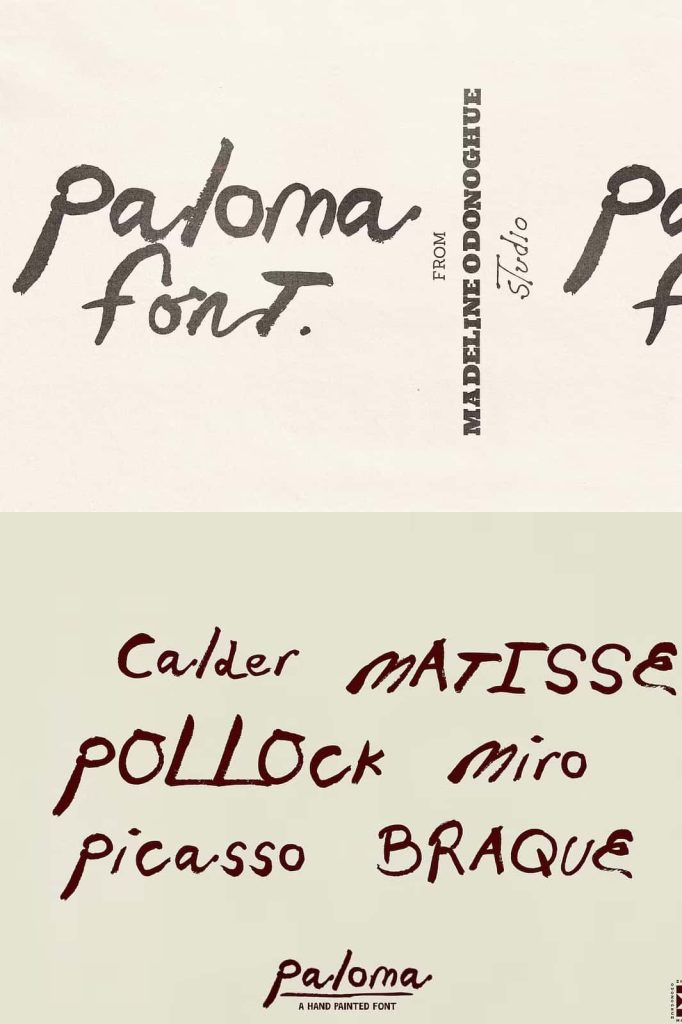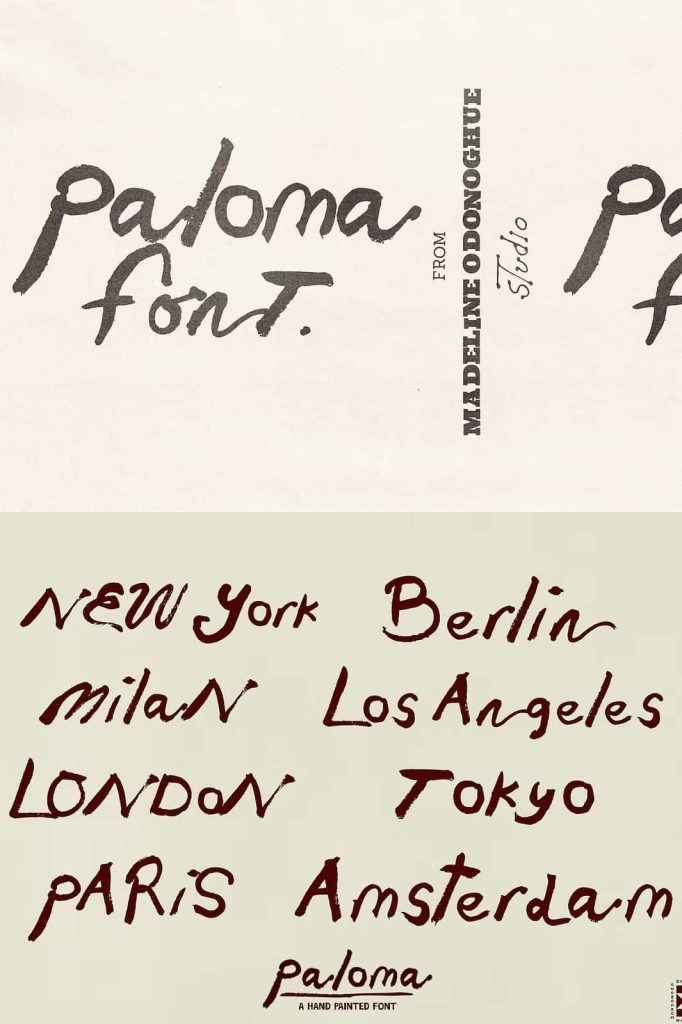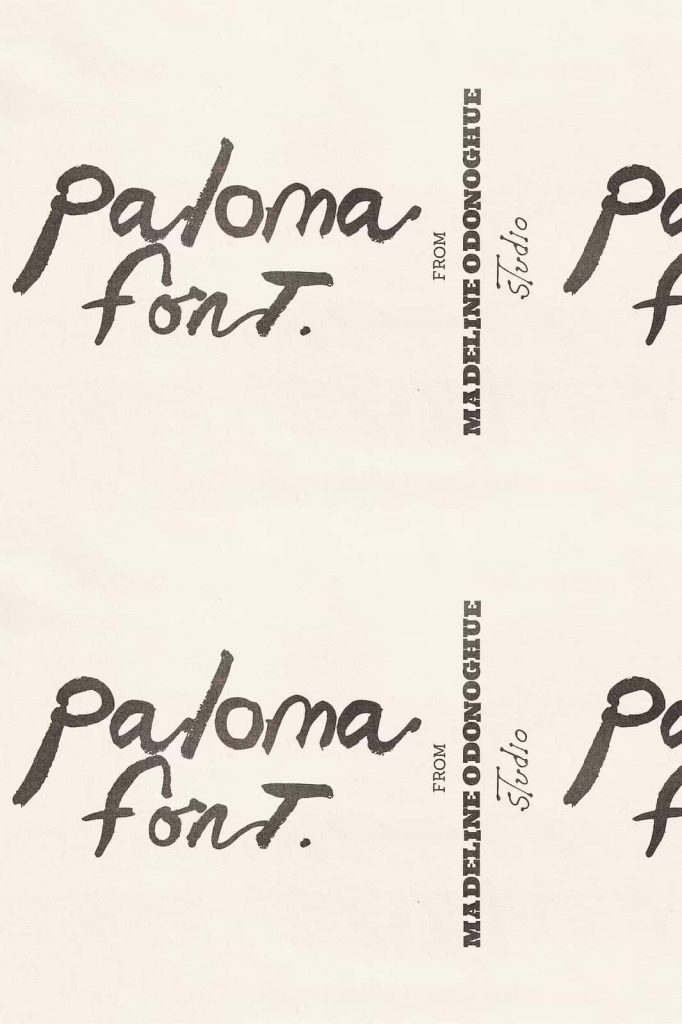
Paloma Hand Painted Display Font
Paloma is a beautifully handcrafted display font that captures the expressive energy of real brush painting. Inspired by loose paint strokes, artist signatures, sketchbook notes, and spontaneous brush marks, this typeface celebrates creativity without the constraints of perfect geometry. Every character originates from genuine hand-painted lettering, allowing the font to preserve the authentic texture, rhythm, and movement that only traditional brushwork can achieve.
Unlike clean digital fonts that emphasize flawless precision, Paloma embraces natural imperfections. Uneven edges, organic brush textures, and flowing strokes give every letter a lively personality that feels authentic and artistic. Whether you are designing a logo, branding materials, product packaging, editorial layouts, or social media graphics, Paloma adds a handcrafted touch that instantly makes your typography more memorable and emotionally engaging.
Its painterly style allows designers to communicate confidence, originality, and artistic freedom while maintaining excellent visual impact across both print and digital media.
Inspired by Real Brush Strokes and Artistic Expression
Paloma draws inspiration from the everyday creative moments experienced by artists and designers. Imagine signing the corner of a finished canvas, writing quick notes in a sketchbook, testing paint on the edge of a palette, or making bold expressive strokes with a freshly loaded brush. Those natural gestures become the foundation of this unique display font.
Every character reflects the fluid movement of traditional painting rather than rigid digital construction. This approach creates typography that feels alive, allowing every word to communicate energy, creativity, and authenticity.
Instead of appearing overly polished, Paloma preserves the subtle irregularities that make handcrafted lettering so appealing. These artistic imperfections give your projects warmth and individuality that perfectly clean fonts often struggle to achieve.
Authentic Hand-Painted Letterforms
Paloma is created from genuine painted letterforms instead of simulated digital brush effects. This gives the typeface a convincing handcrafted appearance with realistic stroke variation, textured edges, and natural brush movement.
The organic details help every headline, logo, and title appear unique, as though it has been individually painted by hand. Designers can immediately add artistic character to their work without creating custom lettering from scratch.
Because every letter preserves the personality of traditional brush painting, Paloma delivers visual authenticity while offering the convenience and consistency of a professional digital font.
Celebrate Imperfection Through Typography
One of Paloma’s greatest strengths is its willingness to embrace imperfection. Rather than hiding irregular edges or smoothing every curve, the font proudly showcases the small variations that naturally occur during hand painting.
These subtle details create typography that feels human instead of mechanical. Slight inconsistencies in brush pressure, movement, and texture produce a lively rhythm that gives every composition greater visual interest.
This handcrafted quality makes Paloma particularly effective for brands and creative projects that value authenticity, craftsmanship, and artistic individuality.
Perfect for Creative Design Projects
Paloma adapts effortlessly to a wide range of creative applications. Its expressive brush style allows designers to create eye-catching typography that feels both artistic and professional.
Logo Design and Branding
Create distinctive logos and memorable brand identities that communicate creativity and personality. Paloma works exceptionally well for art studios, creative agencies, cafés, restaurants, fashion brands, beauty products, lifestyle businesses, and handmade goods.
Packaging Design
Add a handcrafted appearance to product labels and packaging for cosmetics, candles, gourmet foods, beverages, artisan products, and premium gift collections. The painterly letterforms help products feel authentic and carefully crafted.
Editorial Design
Design striking magazine covers, book titles, album artwork, posters, brochures, and creative publications with typography that immediately captures attention.
Social Media Graphics
Produce engaging Instagram posts, promotional banners, YouTube thumbnails, Pinterest graphics, and digital advertisements that stand out through expressive brush lettering.
Creative Merchandise
Paloma looks fantastic on T-shirts, tote bags, stickers, greeting cards, notebooks, wall art, and other merchandise where handcrafted typography becomes a central design feature.
Excellent Display Performance
Paloma is specifically designed for display typography, where expressive letterforms can make the greatest visual impact. Large headlines, titles, logos, and short promotional phrases showcase the natural brush textures and flowing movement that define the font.
If you are searching for a display font that celebrates creativity instead of perfection, Paloma Hand Painted Display Font is an outstanding choice. Its expressive brush-inspired design, authentic handcrafted character, and remarkable versatility make it an essential typeface for designers who want to create bold, artistic, and unforgettable visual experiences.